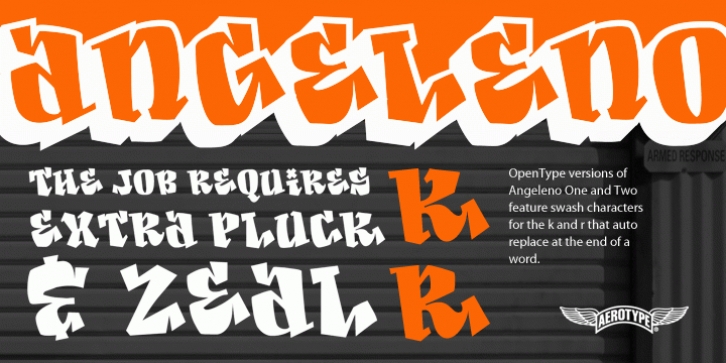
Angeleno Pro is a display font family. This typeface has two styles and was published by Aerotype .
The OpenType versions of Angeleno One Pro and shadow version Angeleno Two Pro have alternate characters for K and R that auto-replace at the end of a word, as well as support for Eastern European Latin and Baltic languages.
· Angeleno Pro One
· Angeleno Pro Two